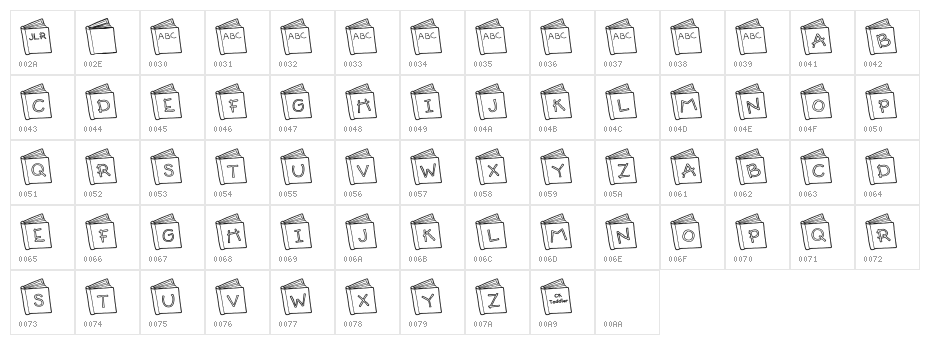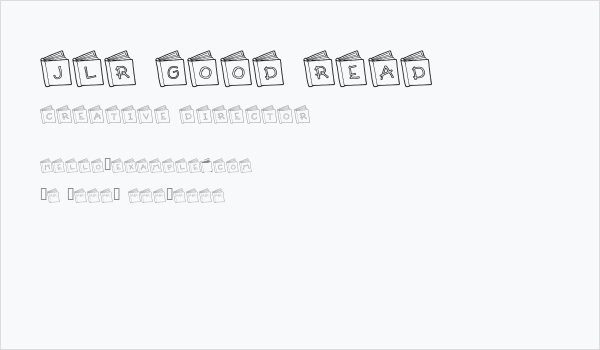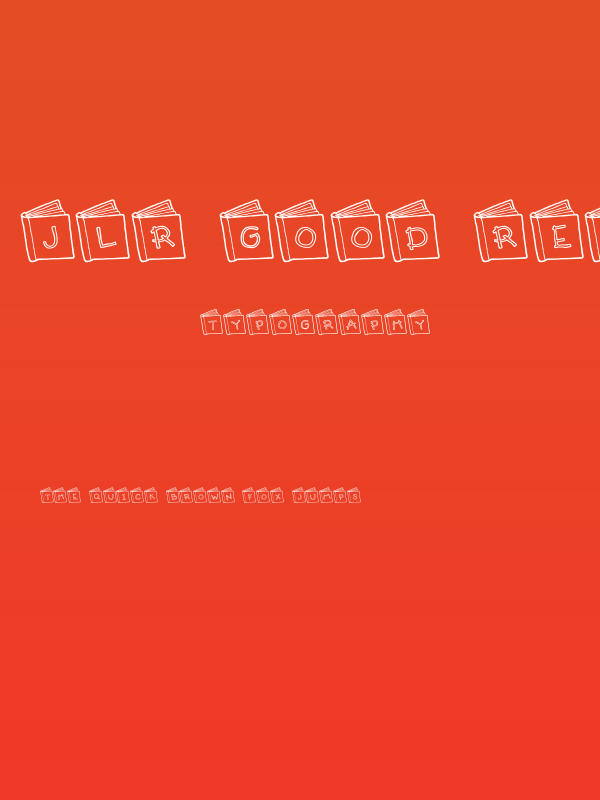
JLR Good Read Font
JLR Good Read Description
This font features a playful and creative design where each letter is encapsulated within an open book illustration. The letters are bold and hand-drawn, giving a whimsical and friendly appearance. The uppercase and lowercase letters maintain a consistent style, with each character sitting prominently on the page of a book. The numbers and special characters follow the same theme, ensuring uniformity across all elements. This font is ideal for projects that require a touch of creativity and a literary theme, making it perfect for children's books, educational materials, or any design that seeks to evoke a sense of fun and imagination.
| Overall Style | Playful, Creative, Whimsical |
| Proposed Projects | Ideal for children's books, educational materials, book-themed events, or playful branding. |